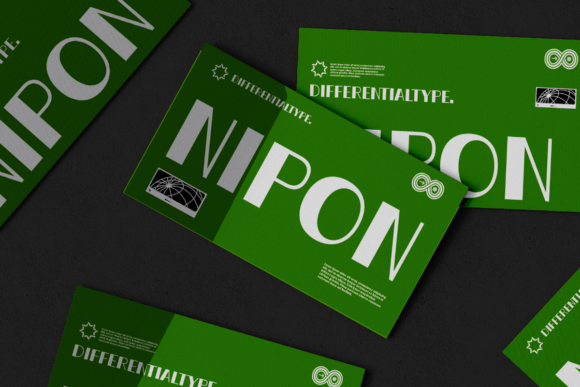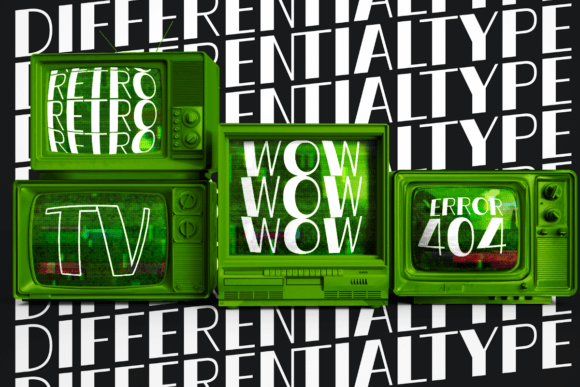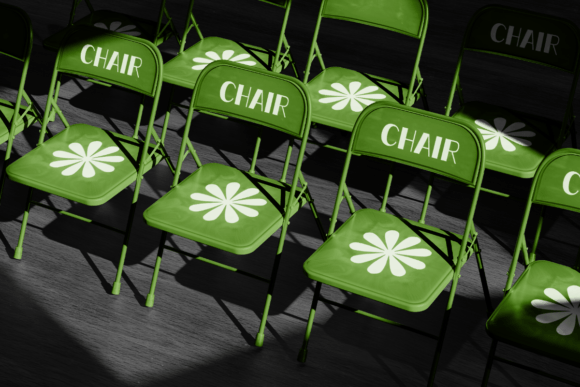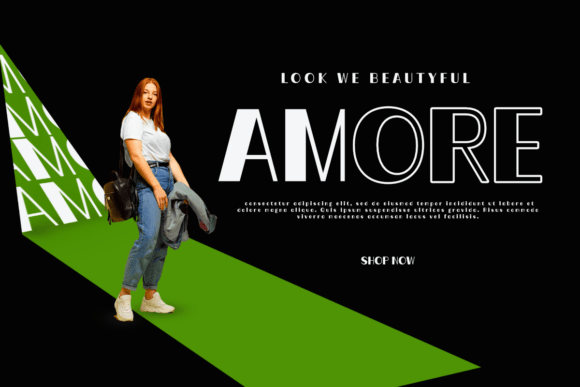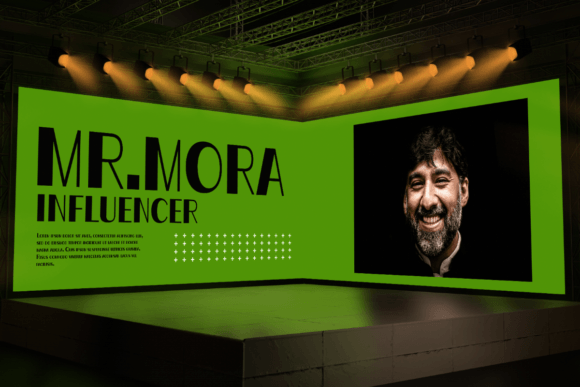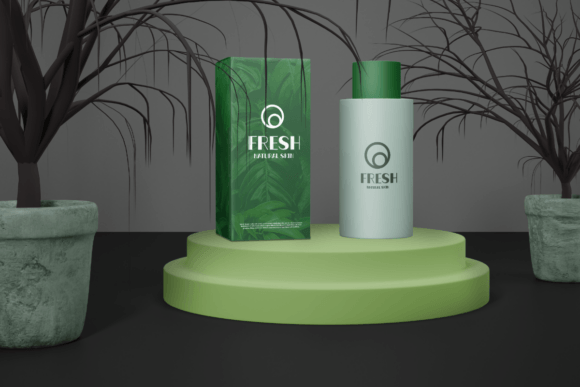
The Moment of Creative Clarity
Have you ever stared at a blank canvas, a blank page, or a blank screen, and suddenly, an idea strikes you? The words flow effortlessly, the design takes shape, and you know exactly what you want to create. That’s the magic of design. And, for those moments when you need the perfect font to elevate your vision, there’s Gede Sesisi Font.
Gede Sesisi Font is a sans-serif display font that exudes elegance and sophistication. Its four diverse styles – Regular, Outline, and Italic – offer the perfect blend of contrast and flair. Whether you’re crafting a logo, creating eye-catching headlines, or bringing dynamism to your brand’s projects, Gede Sesisi Font is the perfect companion. Its bold statement is sure to leave a lasting impression, making it an invaluable addition to any designer’s font collection.
With Gede Sesisi Font, you can unleash your creativity and take your designs to new heights of distinction. Its versatility and striking contrast make it a valuable asset for designers looking to make a lasting impact.
Gede Sesisi Font Key Features
- Font Family: Gede Sesisi is a typeface that offers a unique blend of traditional and modern design elements.
- Font Size: Gede Sesisi is available in a range of sizes, from 8-point to 72-point, making it suitable for various applications, including body text, headings, and titles.
- Resolution: Designed to be scalable, Gede Sesisi can be used at high resolutions, ensuring crisp and clear typography in both print and digital media.
- Unique Characteristics: Gede Sesisi features a distinctive combination of geometric and organic elements, giving it a unique and eye-catching appearance.
- Language Support: Gede Sesisi supports a wide range of languages, including Latin, Cyrillic, and Greek scripts, making it a versatile choice for multilingual applications.
Gede Sesisi Font Review
Overall, I think the Gede Sesisi font is a great addition to any design library. ✨ It has a unique, modern feel that can add a lot of character to your designs. The font’s bold and playful lines make it perfect for headings and titles, and it’s also great for body text due to its readability.
Some of the things that work well with the Gede Sesisi font include:
- ✨ Unique and modern aesthetic
- ✨ Perfect for headings and titles
- ✨ Good readability for body text
- ✨ Supports multiple languages
However, I do think there are a few limitations to consider:
- ⚠️ Limited font weights (only regular and bold)
- ⚠️ May not be suitable for formal or professional designs
- ⚠️ Some characters may not display correctly in certain contexts
Overall, I think the Gede Sesisi font is a great choice for designers who want to add a bit of flair to their designs. While it may have some limitations, it’s a versatile and readable font that can be used in a variety of contexts.
For best results, use the Gede Sesisi Font for headings and titles, and pair it with a clean sans-serif font for body text.
Common use cases include:
- Branding and logo design.
- Brochures and marketing materials.
- Web design and development.